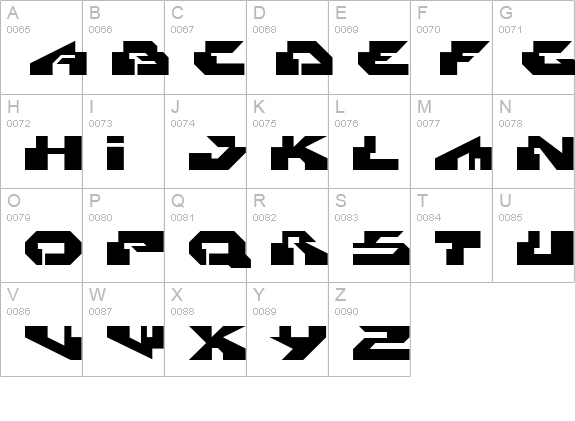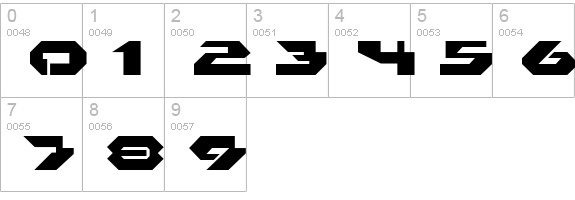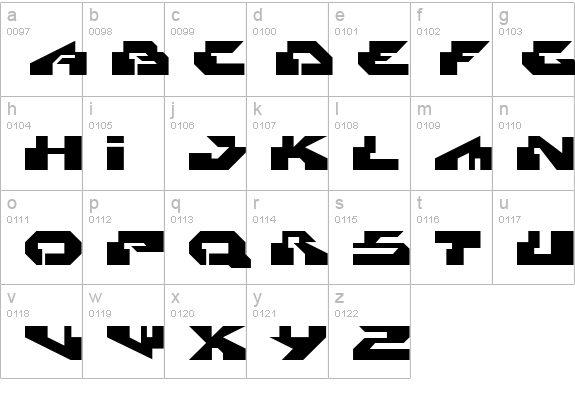
Radikal Font Details
Introducing the bold and captivating Radikal font, a revolutionary typeface that effortlessly combines modern aesthetics with a touch of unconventional flair. Designed with a rebellious spirit, Radikal breaks free from the constraints of traditional typography, offering a fresh and innovative approach to design. With its sharp angles and strong geometric forms, Radikal commands attention and makes a bold statement. This versatile font is perfect for a wide range of creative projects, from edgy logos and eye-catching headlines to striking posters and captivating social media graphics. What sets Radikal apart is not only its striking appearance, but also its accessibility. This extraordinary font is freely available to download at FontsMarket.com, ensuring that designers and creatives everywhere can unleash their creativity without any restrictions. Whether you're a seasoned professional or just starting out on your design journey, Radikal empowers you to push boundaries and explore new possibilities. In addition to its visual impact, Radikal is also highly legible, making it ideal for both print and digital mediums. Its clean and crisp lines ensure that your message is delivered with clarity and impact, while its bold presence demands attention and leaves a lasting impression. So why settle for ordinary when you can embrace the extraordinary with Radikal? Download this unique and captivating font today, and let your creativity run wild. With Radikal, the possibilities are endless, and the freedom to express yourself is unlimited. Get ready to make a statement and set your designs apart from the crowd with the bold and free-spirited Radikal font.